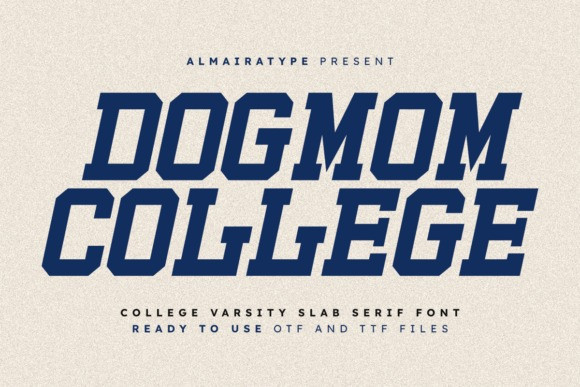
Dogmom College Font
Designer: Almairatype Studio
Dogmom College Font a definitive college varsity slab serif font. This typeface features a heavy, blocky anatomy with sharp, angular serifs and a dynamic slant that captures the quintessential aesthetic of traditional athletic branding. Its unique character is defined by unyielding geometric strength and a nostalgic “letterman” silhouette, making it an extraordinary choice for sports team logos, university-themed apparel, high-impact editorial headers, and classic collegiate lifestyle branding. Dogmom College delivers a sense of professional authority and legendary school spirit to your visual identity, ensuring every word feels like a permanent and authoritative statement of team pride.